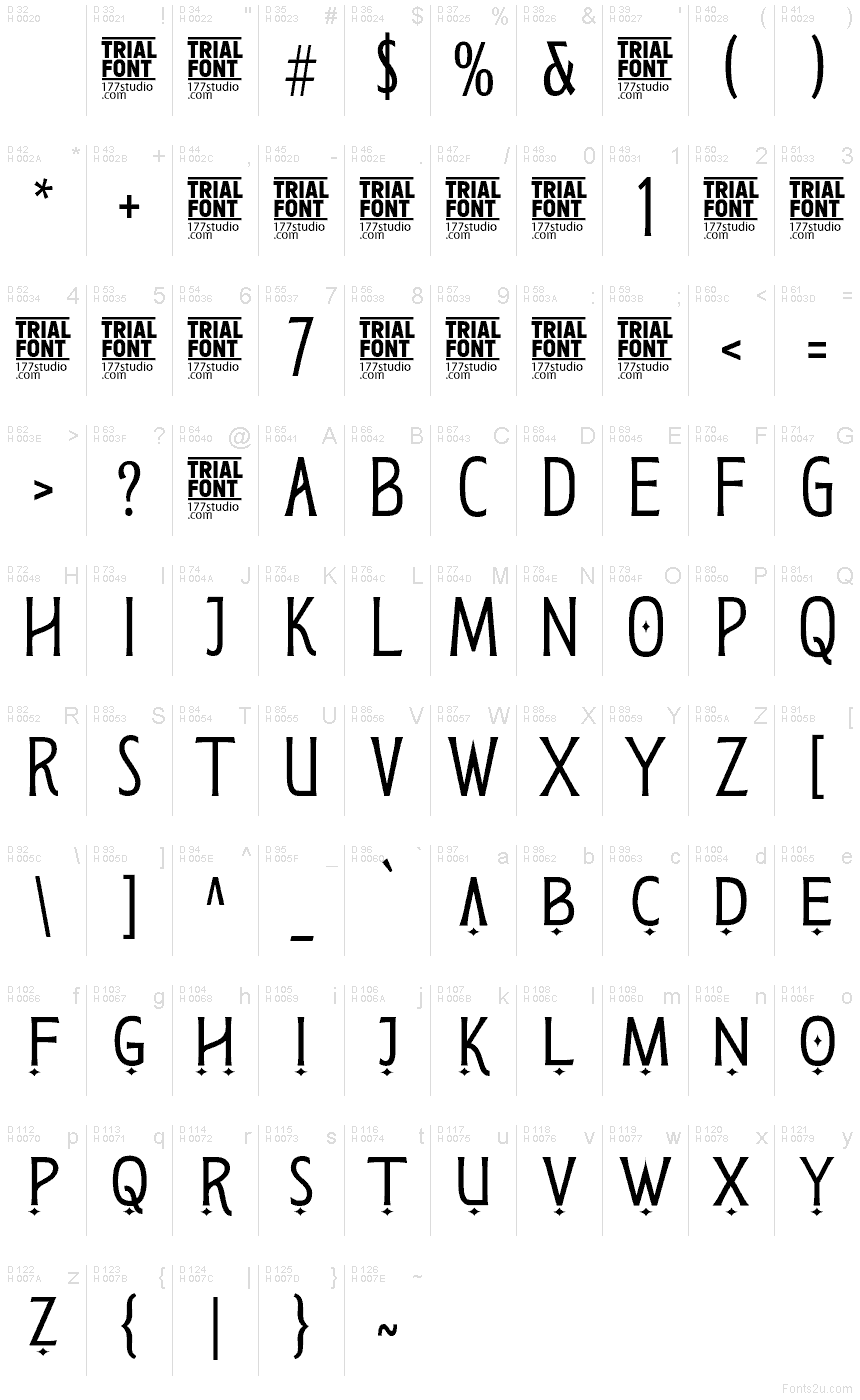
Continent Transport Demo Light
Continent Transport Light font by 177Studio is a free retro display typeface in the Continent Transport family that feels like it’s been pulled from old train timetables and luxury liner tickets. Tall, narrow letters, crisp line work, and those distinctive diamond markers give it the snap of vintage travel posters, like metal signage stamped into enamel. There’s a steady rhythm to the spacing that keeps the quirky details readable even at larger sizes.
Using Continent Transport Light font, you can dress up posters, ticket-style invitations, travel branding, packaging, menus, and event titles with a stylized, journey-ready flair. This free font shines on headlines and wordmarks where you want a hint of adventure without losing clarity. Pair it with a simple geometric sans in smaller text and keep plenty of breathing room around it so those arrow-like accents and verticals can really stand out.